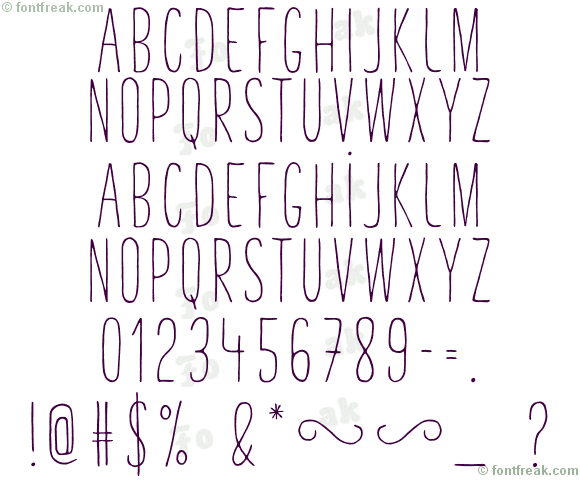
TastyBirds-Sans
About TastyBirds-Sans
TastyBirds-Sans is a distinctive sans-serif font designed by Youssef Habchi, embodying a playful yet modern aesthetic. This font stands out due to its unique stroke weight and delightful balance between boldness and subtlety. The characters feature a consistent weight that provides a clean, approachable feel, making it suitable for various applications. The open spacing enhances readability, while the rounded edges add a friendly touch, perfect for conveying warmth and creativity.
The TastyBirds-Sans font is versatile and can be effectively used in a range of design projects. It is particularly well-suited for restaurant menus, where its inviting style can enhance the dining experience. Additionally, it works wonderfully for branding materials, such as logos and signage, helping small businesses create a memorable identity. The font's playful nature also makes it an excellent choice for children's book covers and educational materials, where engaging visuals are key. Furthermore, graphic designers will find TastyBirds-Sans ideal for social media graphics and marketing campaigns, as it captures attention without overwhelming the viewer.
In conclusion, TastyBirds-Sans is a standout font that combines a modern sans-serif style with playful characteristics. Its versatility and inviting design make it an excellent choice for various applications, from restaurant menus to branding materials. Experience the charm of TastyBirds-Sans with a TastyBirds-Sans font free download today, and let your creativity take flight.